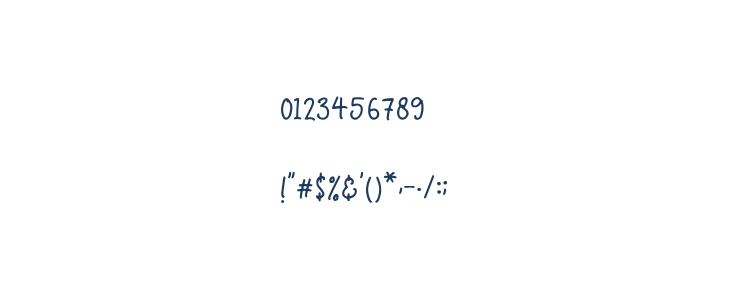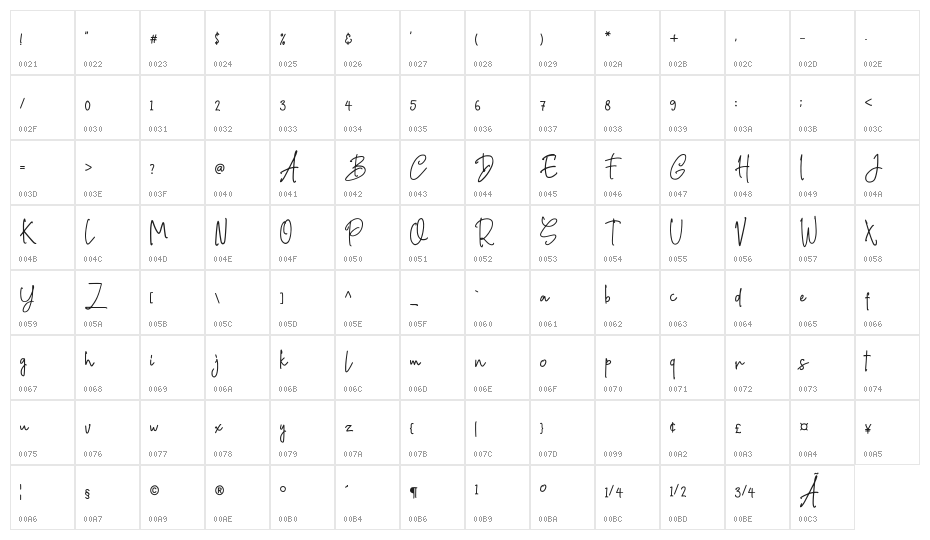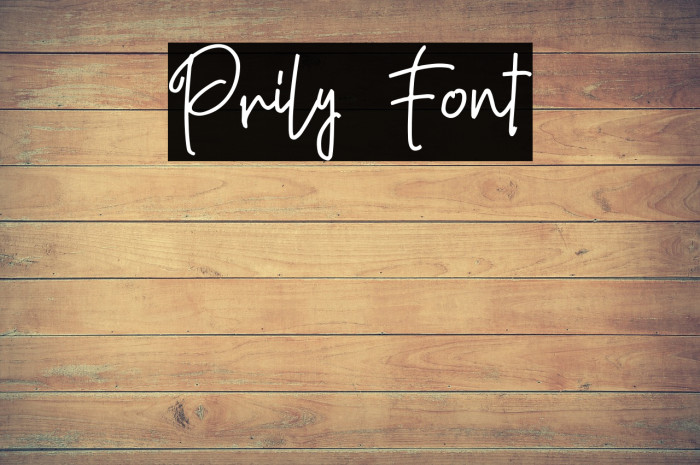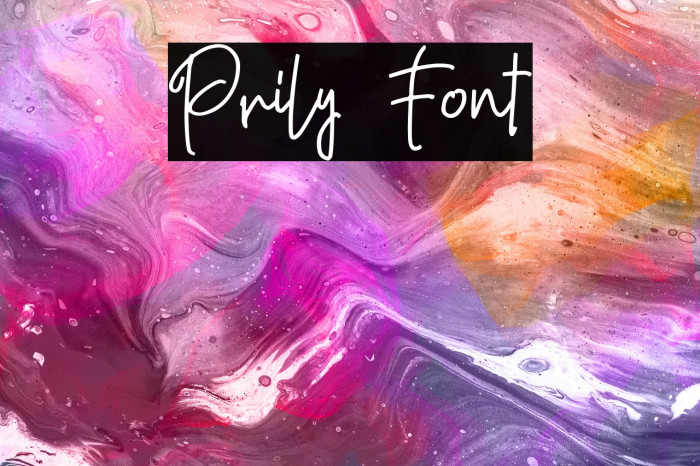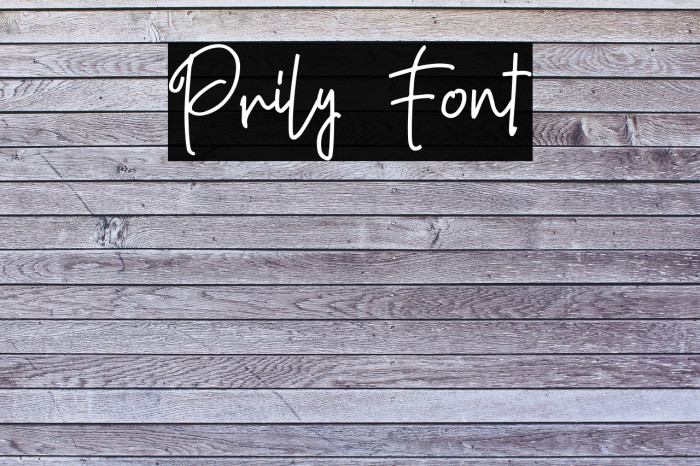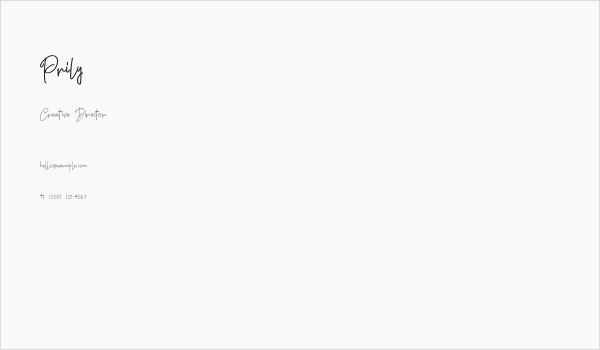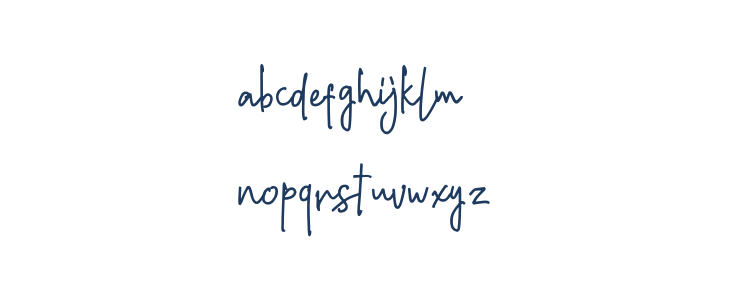
Prily Font
Prily Description
This font features a playful and casual handwritten style, characterized by its fluid and organic letterforms. The uppercase letters exhibit a whimsical flair with varying stroke thickness, giving each character a unique personality. The lowercase letters maintain a consistent flow, enhancing readability while preserving the font's informal charm. Numbers and special characters are crafted with the same lively spirit, making them suitable for creative projects. The overall appearance is dynamic and engaging, perfect for adding a personal touch to any design.